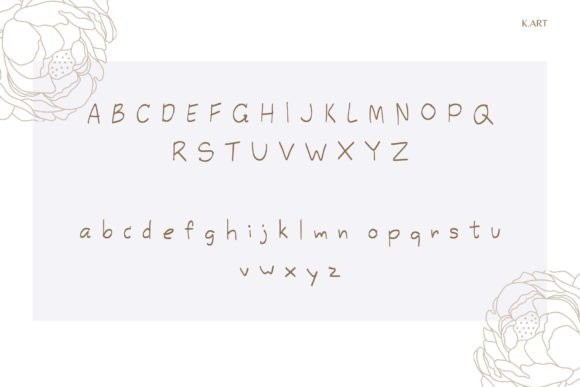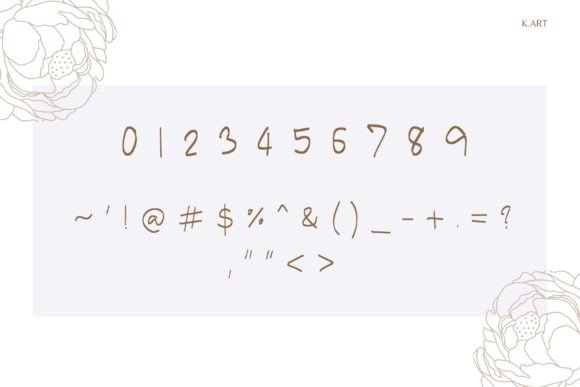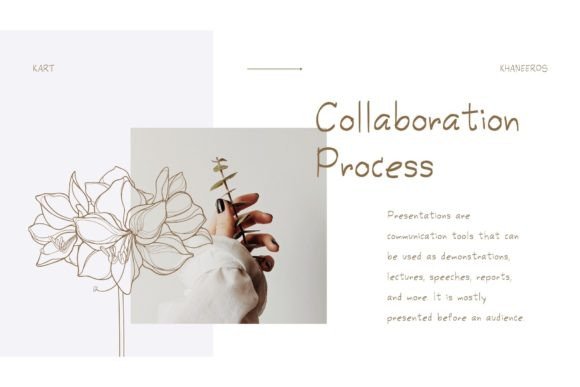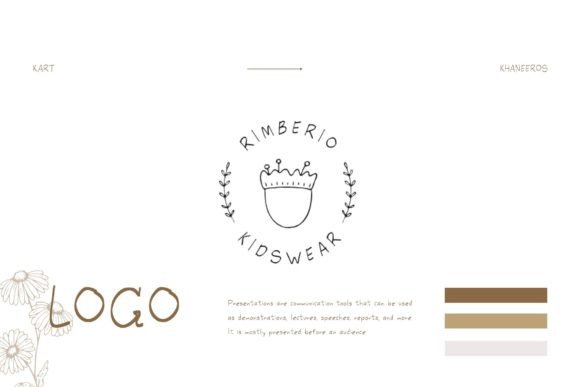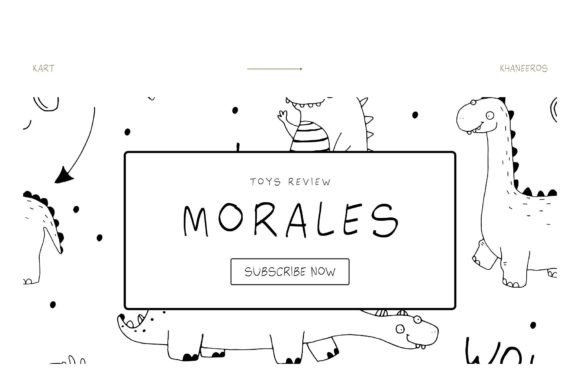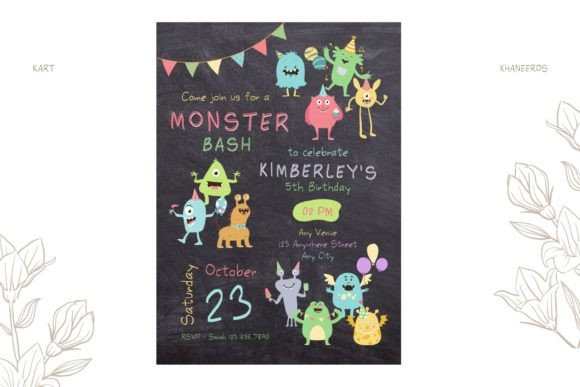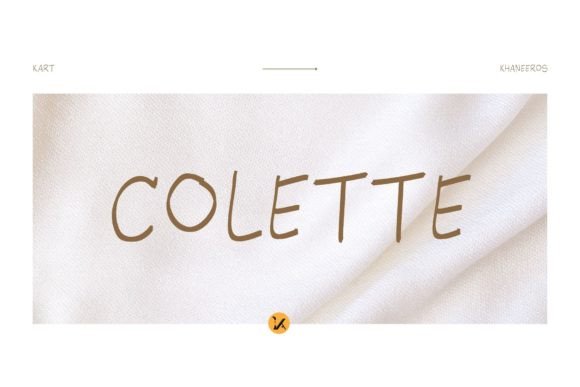
Colette Font: The Ultimate Handwriting Font for Creative Projects
Are you tired of using the same old fonts for your creative projects? Look no further than the Colette Font, a cute handwriting kid’s font that is sure to make your designs stand out. With its playful and charming style, this font has the potential to become your go-to font for all your creative endeavors.
What is Colette Font?
Colette Font is a handwriting font designed specifically for creative projects. Its unique and playful style makes it perfect for a variety of designs, from children’s books and educational materials to crafts and DIY projects. The font’s cute and whimsical feel is sure to brighten up each of your designs and add a touch of personality to your work.
Features of Colette Font
So, what makes Colette Font so special? Here are just a few of its key features:
- Cute and Playful Style: Colette Font has a unique and playful style that is sure to capture the attention of your audience.
- Handwriting Font: This font is designed to look like handwriting, giving your designs a personal and human touch.
- Kid-Friendly: Colette Font is perfect for children’s books, educational materials, and other kid-friendly designs.
- Versatile: This font can be used for a variety of creative projects, from crafts and DIY projects to digital designs and more.
Why Use Colette Font?
So, why should you use Colette Font for your creative projects? Here are just a few reasons:
- Adds Personality to Your Designs: Colette Font’s unique and playful style is sure to add a touch of personality to your designs.
- Perfect for Kids’ Designs: This font is specifically designed for kid-friendly designs, making it perfect for children’s books, educational materials, and more.
- Easier to Read: The handwriting style of Colette Font makes it easier to read and understand, especially for children.
- Time-Saving: With Colette Font, you can create professional-looking designs in no time, saving you time and effort.
In conclusion, Colette Font is a cute handwriting kid’s font that is sure to make your creative projects extraordinary. With its playful and charming style, this font has the potential to become your go-to font for all your creative endeavors. Whether you’re a designer, crafter, or DIY enthusiast, Colette Font is perfect for anyone looking to add a touch of personality to their designs. So why wait? Download Colette Font today and start creating!
- Q: What is Colette Font?
A: Colette Font is a handwriting font designed specifically for creative projects.
- Q: Is Colette Font kid-friendly?
A: Yes, Colette Font is perfect for children’s books, educational materials, and other kid-friendly designs.